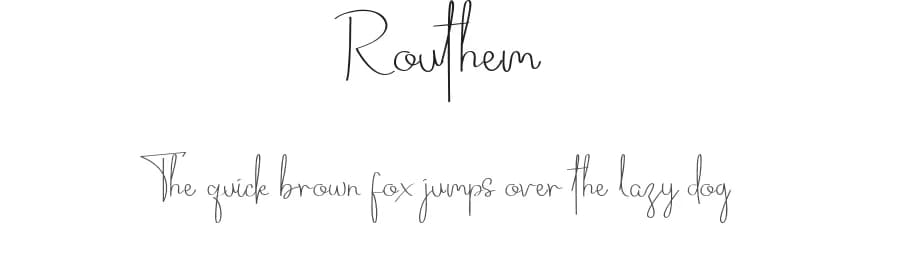
About Routhem Font
Routhem Specifications
| Font Family | Routhem Med |
| Full Name | Routhem-Regular |
| Glyph Count | 146 glyphs |
| PostScript Name | Routhem-Regular |
| Designer | Yosep Hendhry |
Routhem Font is a script font that shines as a display or heading face. Pair it with a clean sans-serif or serif font for body text β the contrast creates a clear hierarchy while the two styles stay balanced and easy to read.
Routhem Font